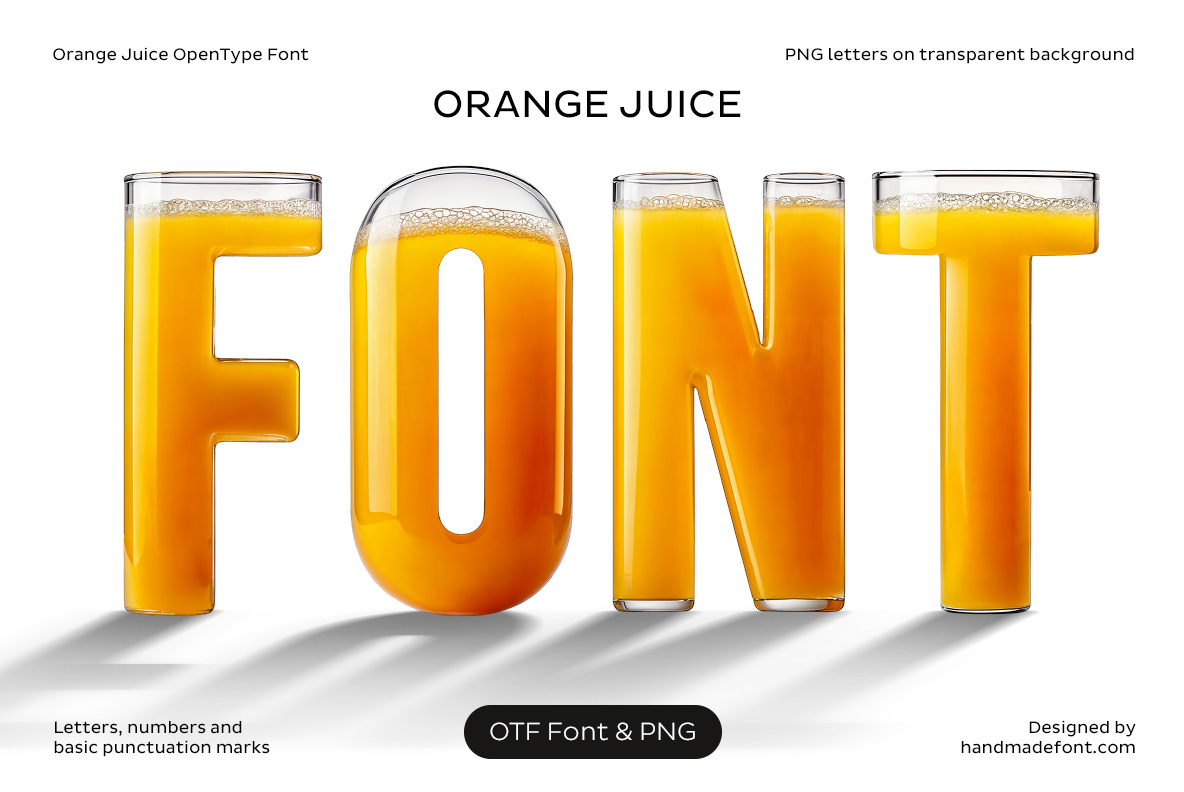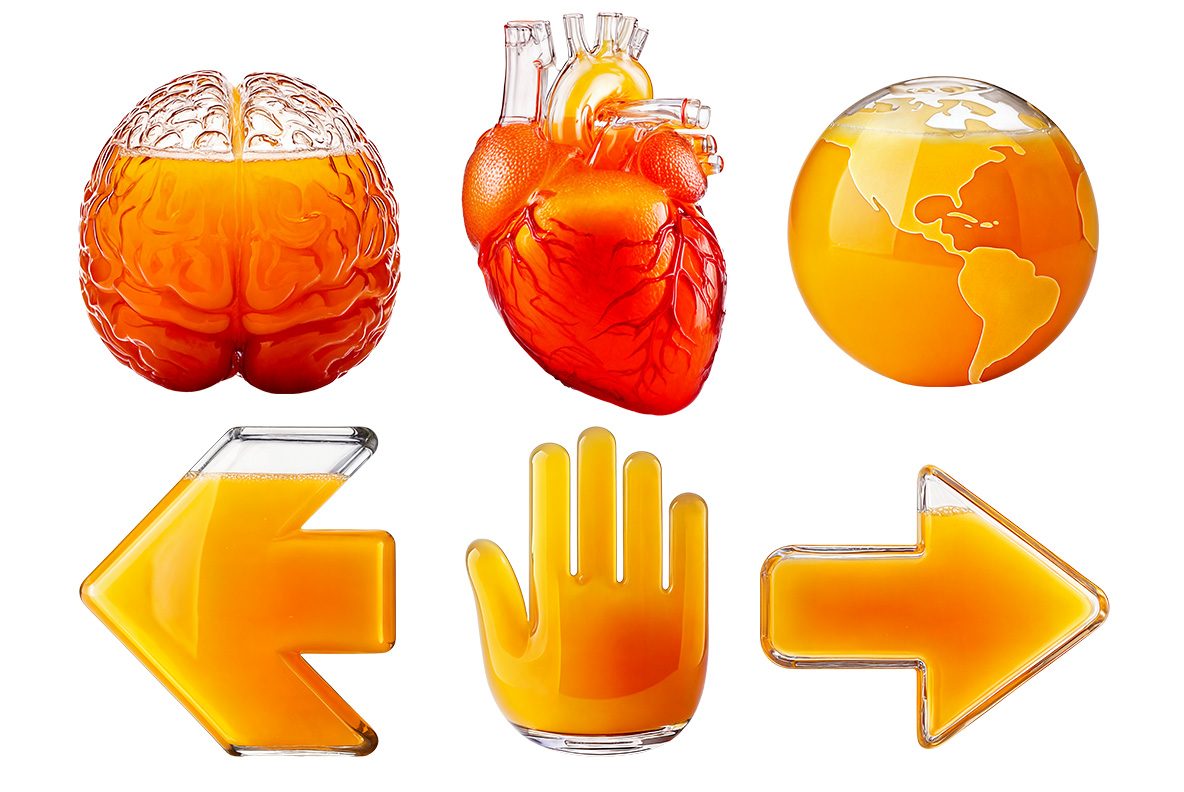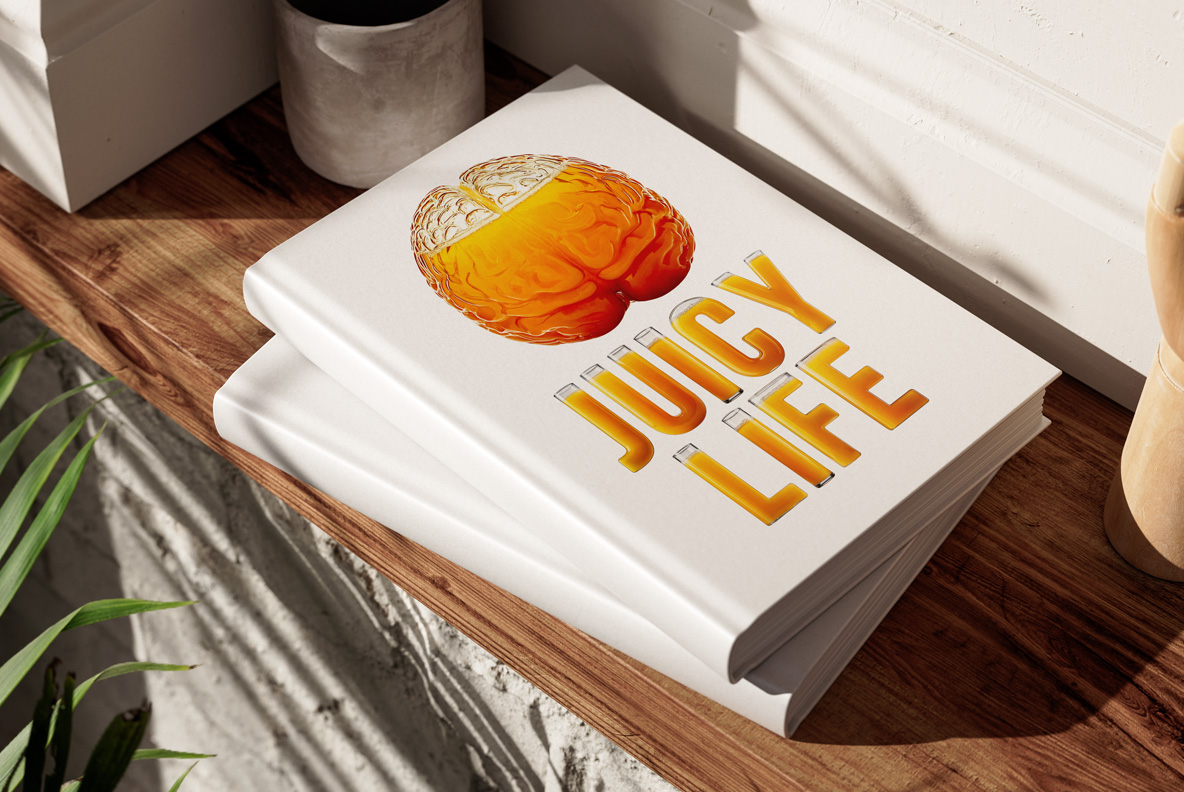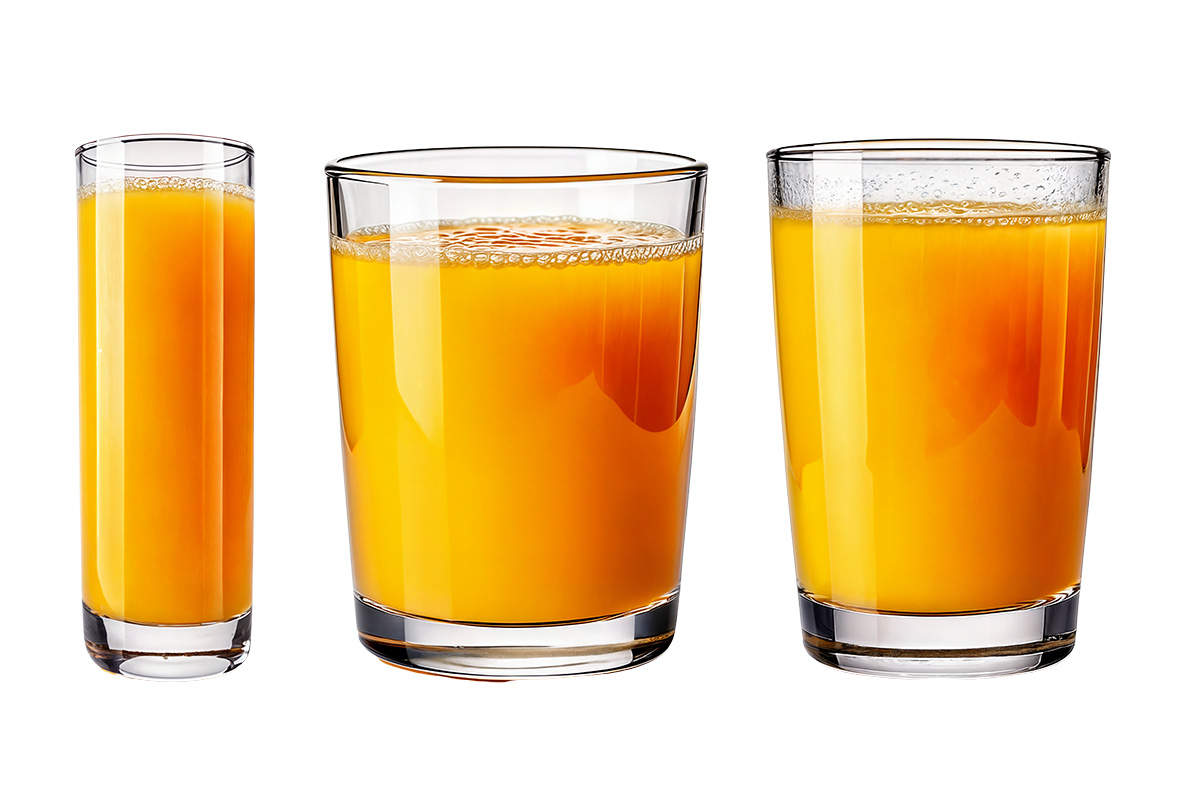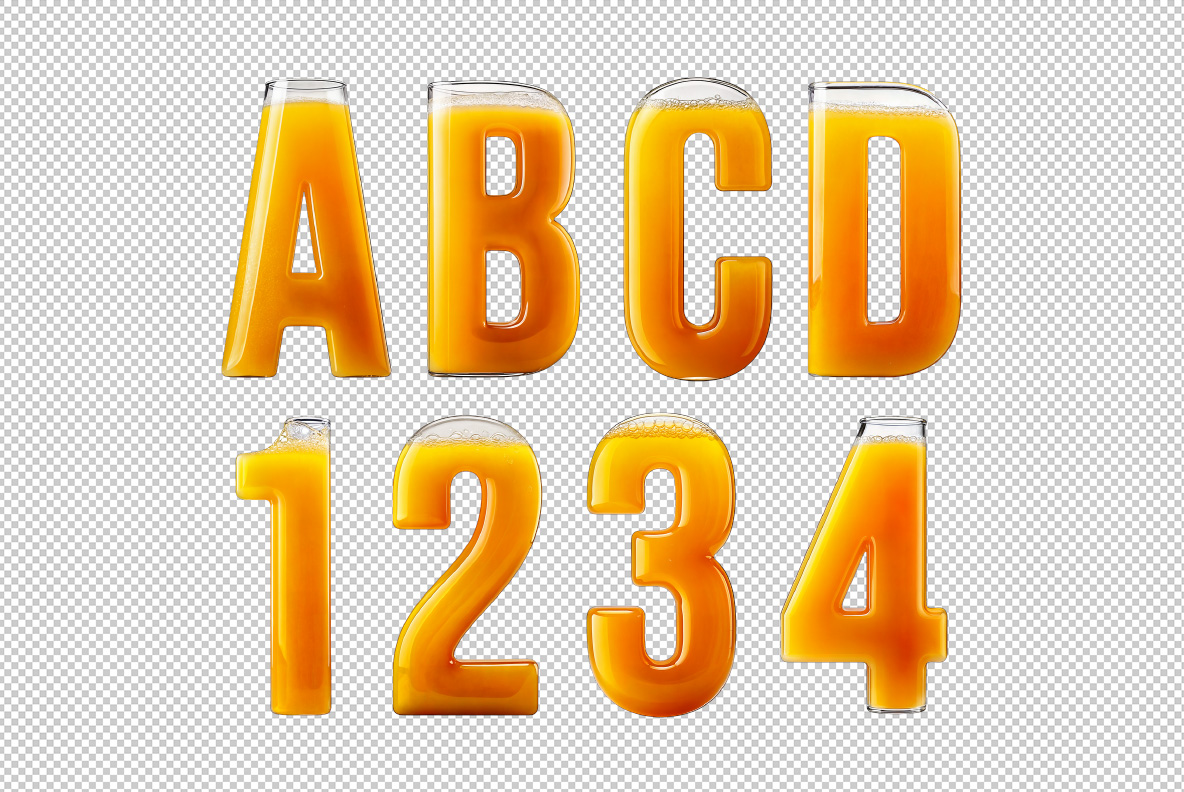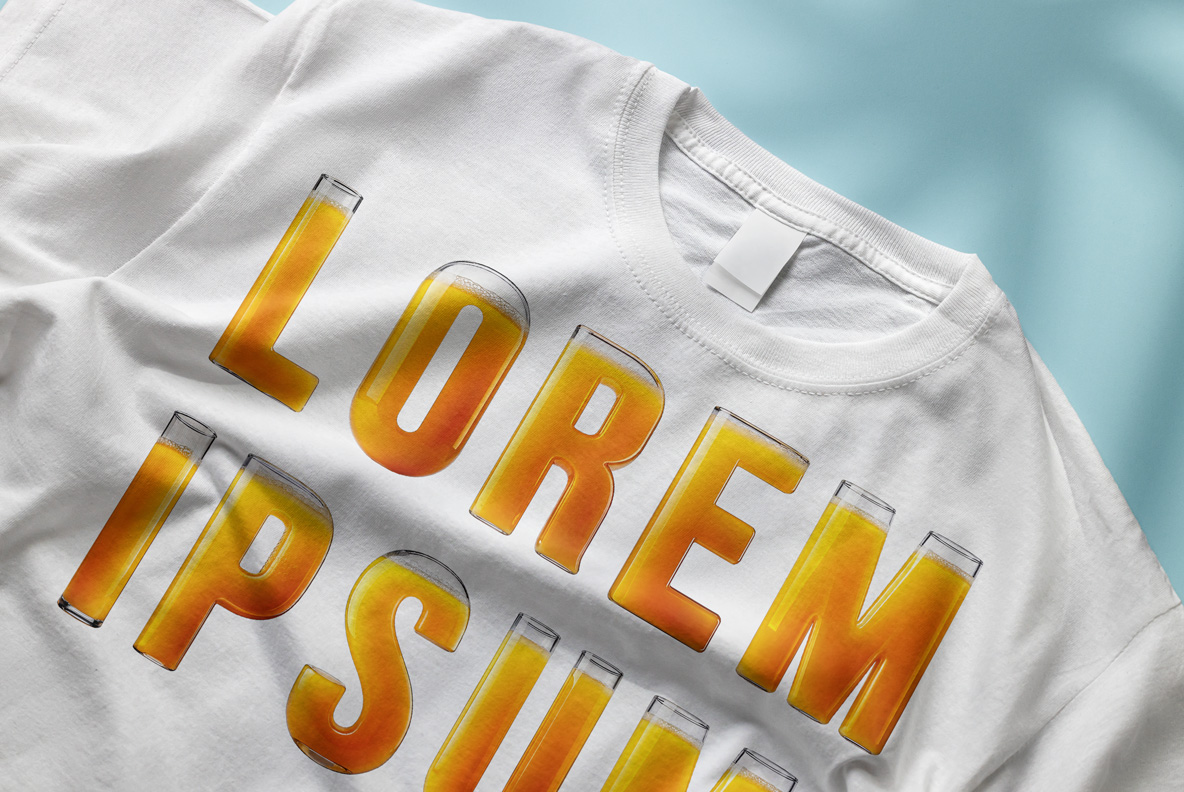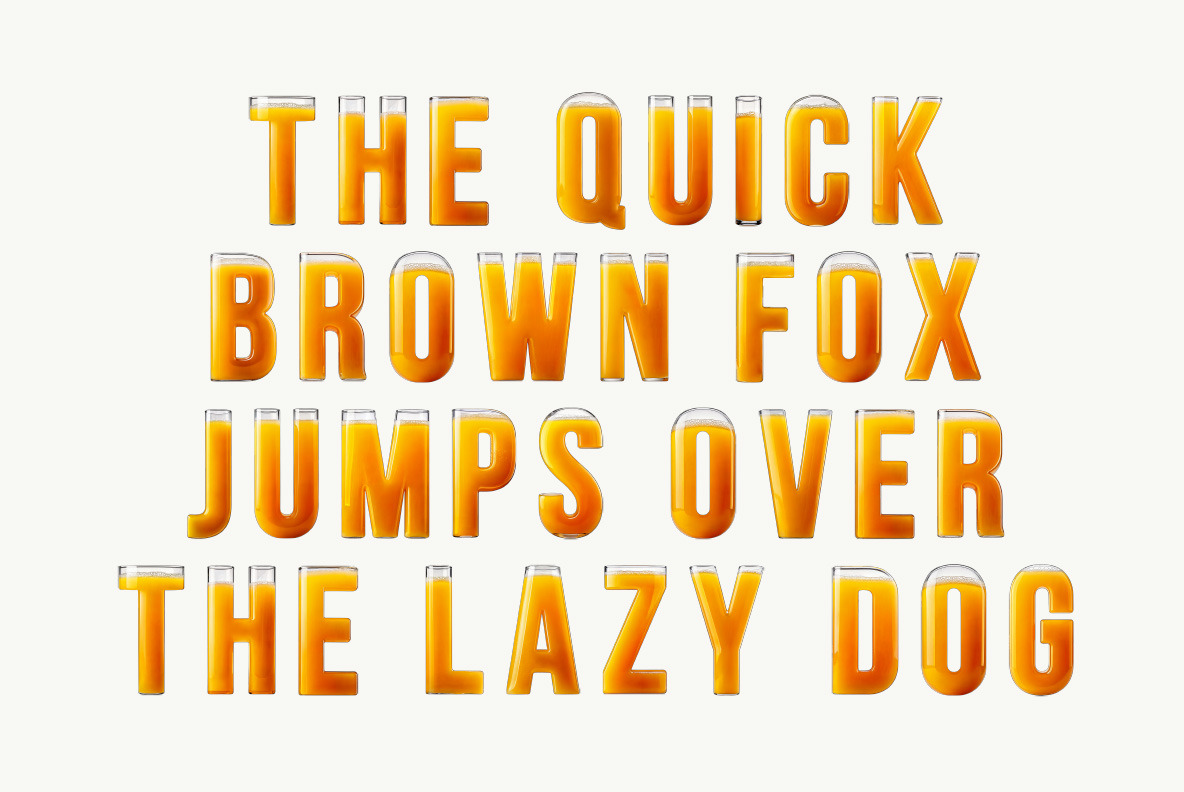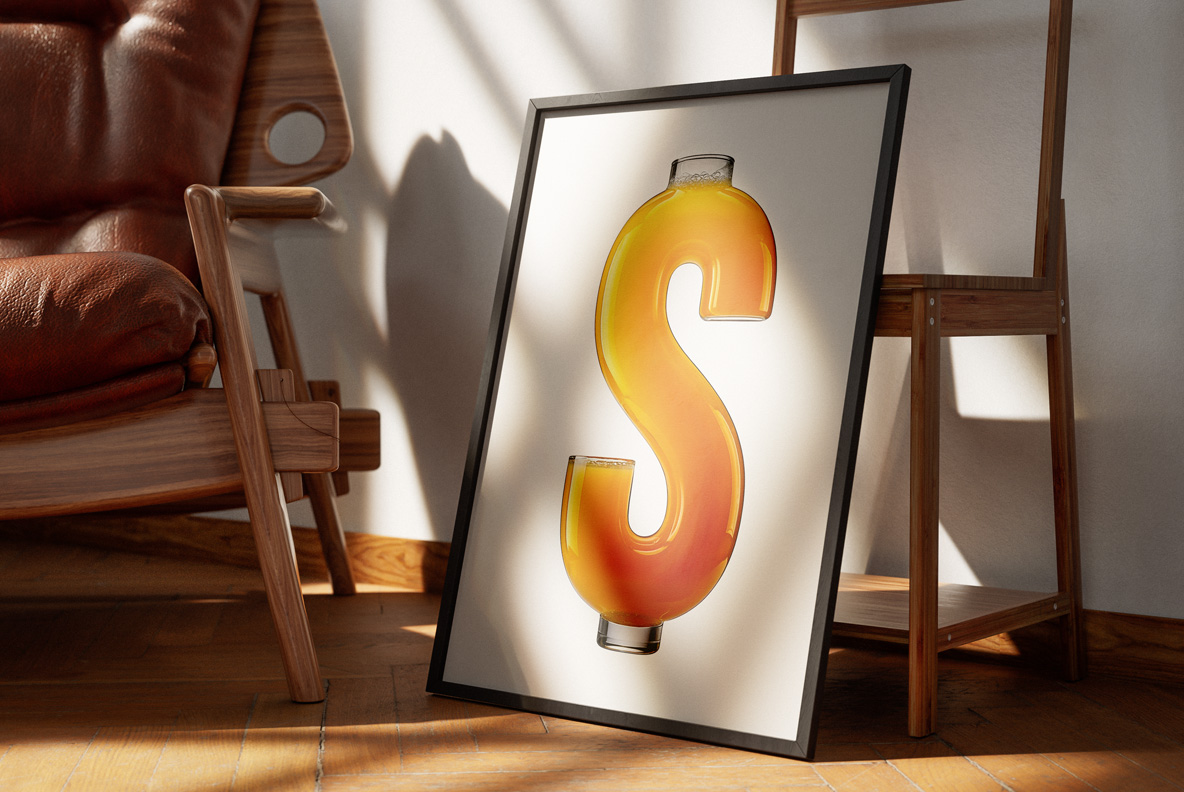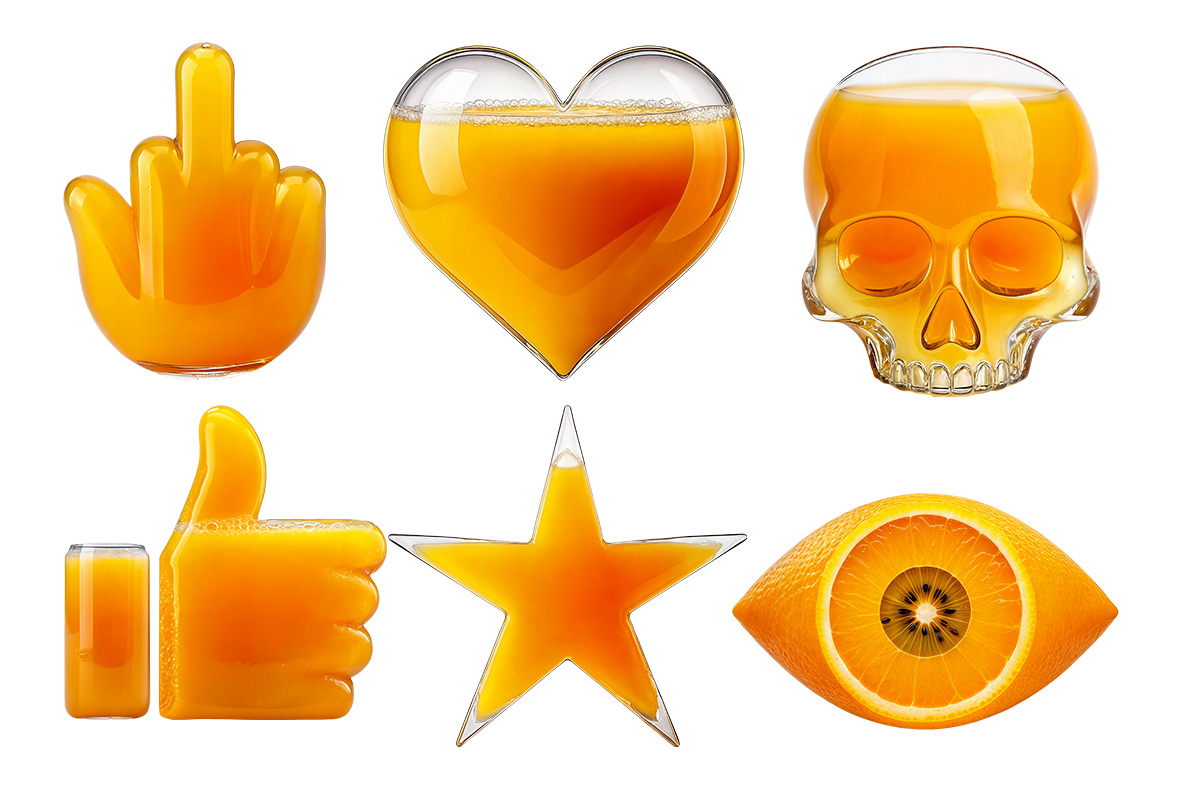
Orange Juice Font. Freshly Squeezed Letters, No Pulp Fiction
Orange Juice Font is a playful, refreshing typeface designed as crystal-clear glass letters filled with bright, pulpy orange juice. Bubbly foam and vivid citrus hues make it burst with energy and freshness. Ideal for food packaging, summer promotions, or creative branding, it adds a juicy, uplifting vibe to any design.
Fonts Don’t Have to Be Boring. This One Proves It.
Meet Orange Juice Font, the typographic equivalent of a freshly squeezed, ice-cold glass of pure sunshine. This isn’t just a font. This is breakfast for your eyes. Every single letter is sculpted like a crystal-clear glass vessel, brimming with vibrant, golden-orange juice — the kind that makes you believe in weekend brunches, summer picnics, and the magic of vitamin C. It’s bubbly, it’s juicy, and it’s ready to pour personality all over your design. Forget dry, lifeless typography — this font fizzes with flavor.
Let’s talk details. These letters aren’t simply filled with orange liquid; they are orange juice. You can practically see the frothy foam dancing along the top, the perfect meniscus curve of a well-poured drink, and the luminous citrus tones glowing like a late afternoon sunbeam through a kitchen window. It’s typography so realistic, you’ll want to stick a straw in it. Go ahead — imagine headlines that practically invite your audience to take a sip. Imagine packaging that screams, “This is fresh, this is fun, this is different.” Orange Juice Font makes even the most ordinary words taste extraordinary.
Orange Juice in Glass Alphabet
100% Vitamin C. 0% Design Dullness.
And here’s the best part: this isn’t a font that takes itself too seriously. It’s cheeky. It’s playful. It’s that friend who shows up to brunch in a bright orange blazer and somehow makes it work. Use it for food and beverage branding? Absolutely. It’s basically begging to headline your next juice bar logo, fruit drink campaign, or eco-friendly café menu. But it’s not limited to the obvious. This is a font that thrives anywhere you need a splash of zest — from bold, quirky advertising to social media posts that need to pop (literally and figuratively). It’s perfect for summer events, health campaigns, playful product packaging, or any project craving that “wow, what IS that font?” moment.
Orange Juice Open-Type Font description
Orange Juice in Glass Alphabet
Who Knew Letters Could Taste Like Summer?
But let’s not ignore the deeper design magic. Orange Juice Font combines bold, blocky silhouettes with the clean elegance of glass typography. Each character balances fun and professionalism: it’s polished enough for high-end branding yet bold enough for creative experiments. In other words, this font gives you the best of both worlds — it’s stylish and silly, sophisticated and spirited. Like pairing a crisp mimosa with a gourmet breakfast (you see where we’re going with this).
If fonts had personalities, Orange Juice Font would be the extrovert at the party, standing by the window for the perfect lighting, radiating positivity, and handing out little bursts of joy to everyone in the room. It doesn’t whisper; it speaks up — in a bright, refreshing, and unforgettable voice.
Orange Juice in Glass Alphabet
Your New Favorite Font? Consider It Squeezed.
And here’s a little secret: people don’t just see fonts. They feel them. And this one? It feels like summer vacations, like freshly peeled citrus, like waking up on the right side of the bed. It’s not just typography; it’s an experience.
So, whether you’re creating a bold new brand, revamping your product line, or just want to sprinkle some zest into your next project, Orange Juice Font is here to serve. Cold. Fresh. Fun. Typography never looked (or tasted) this good. Now go on — pour yourself some letters.